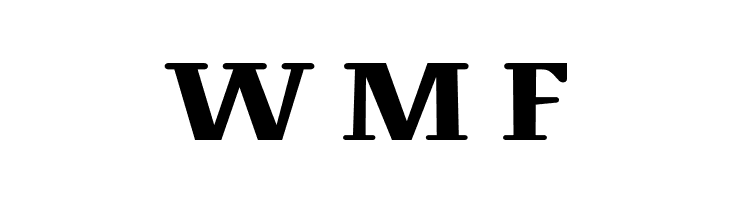
A bold, classic serif font with strong strokes and pronounced serifs.
A bold serif font with a classic and authoritative style.
A bold, classic serif font with strong strokes and elegant serifs.